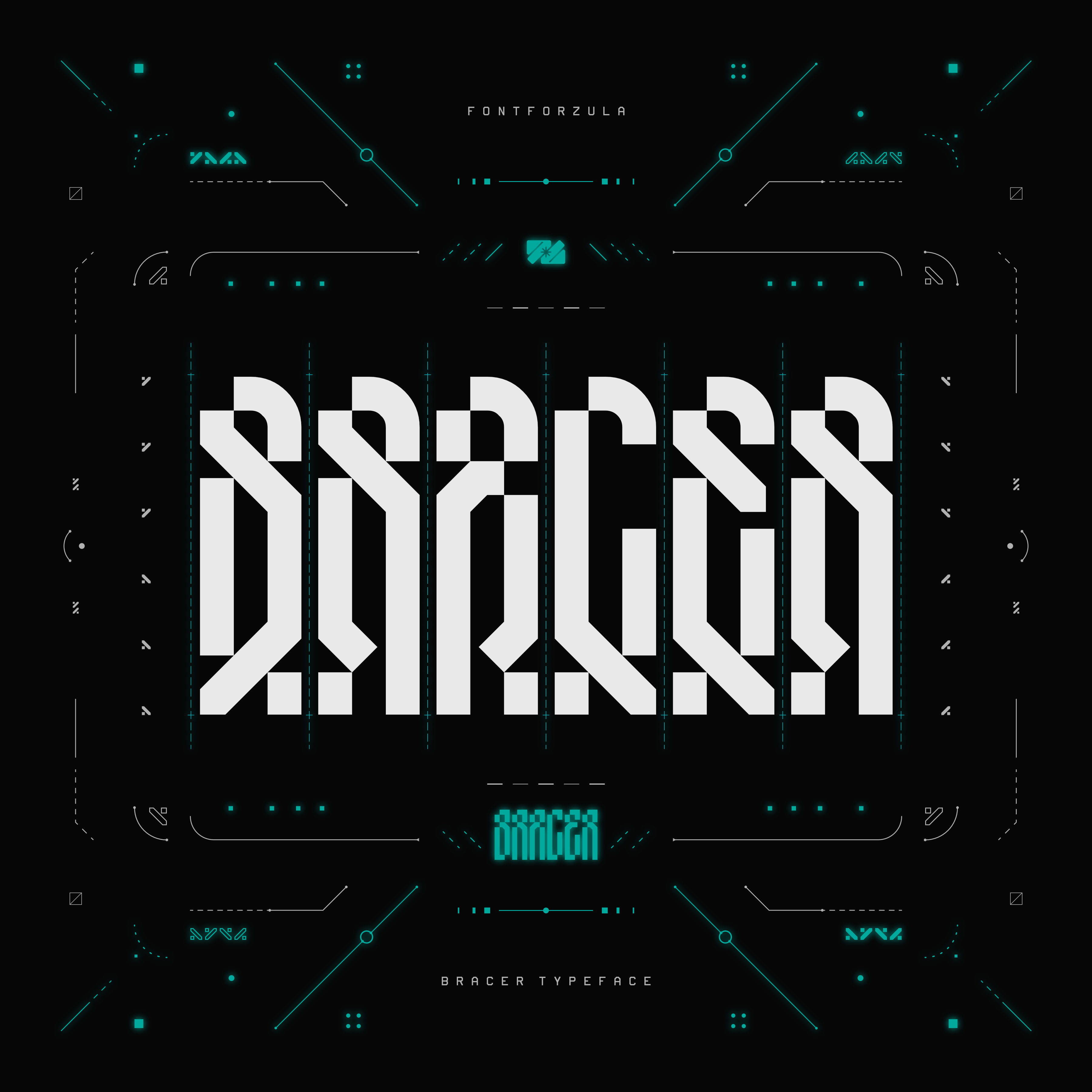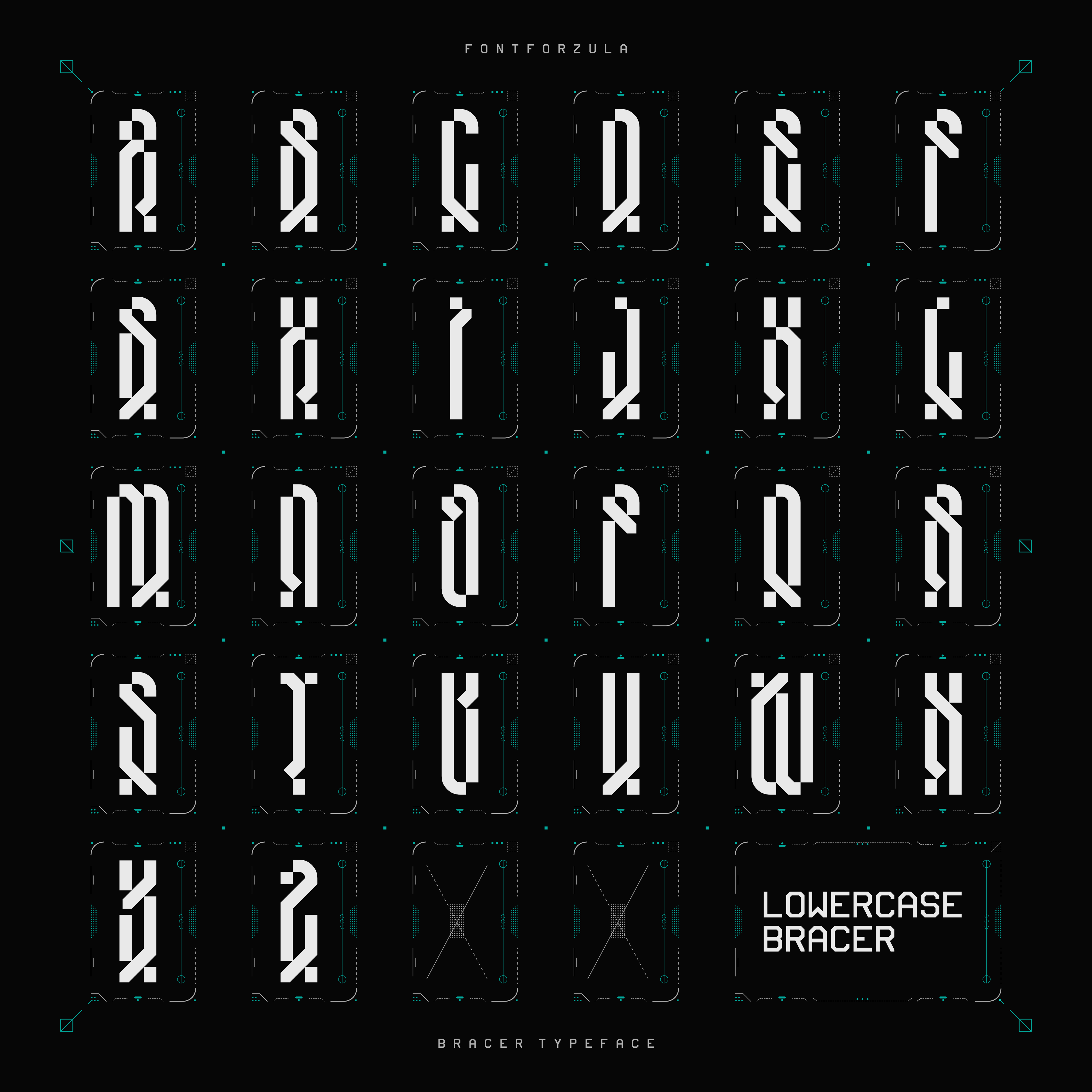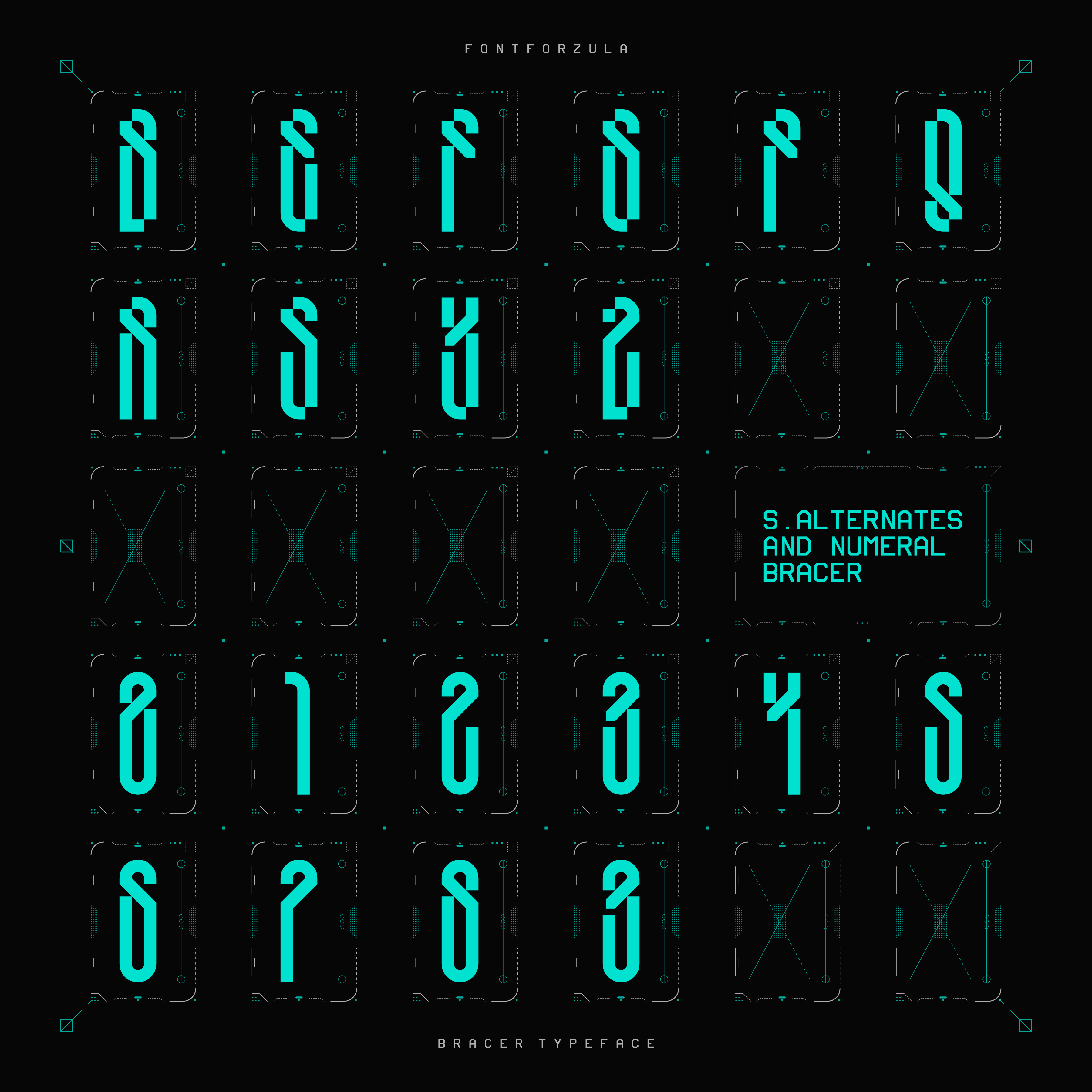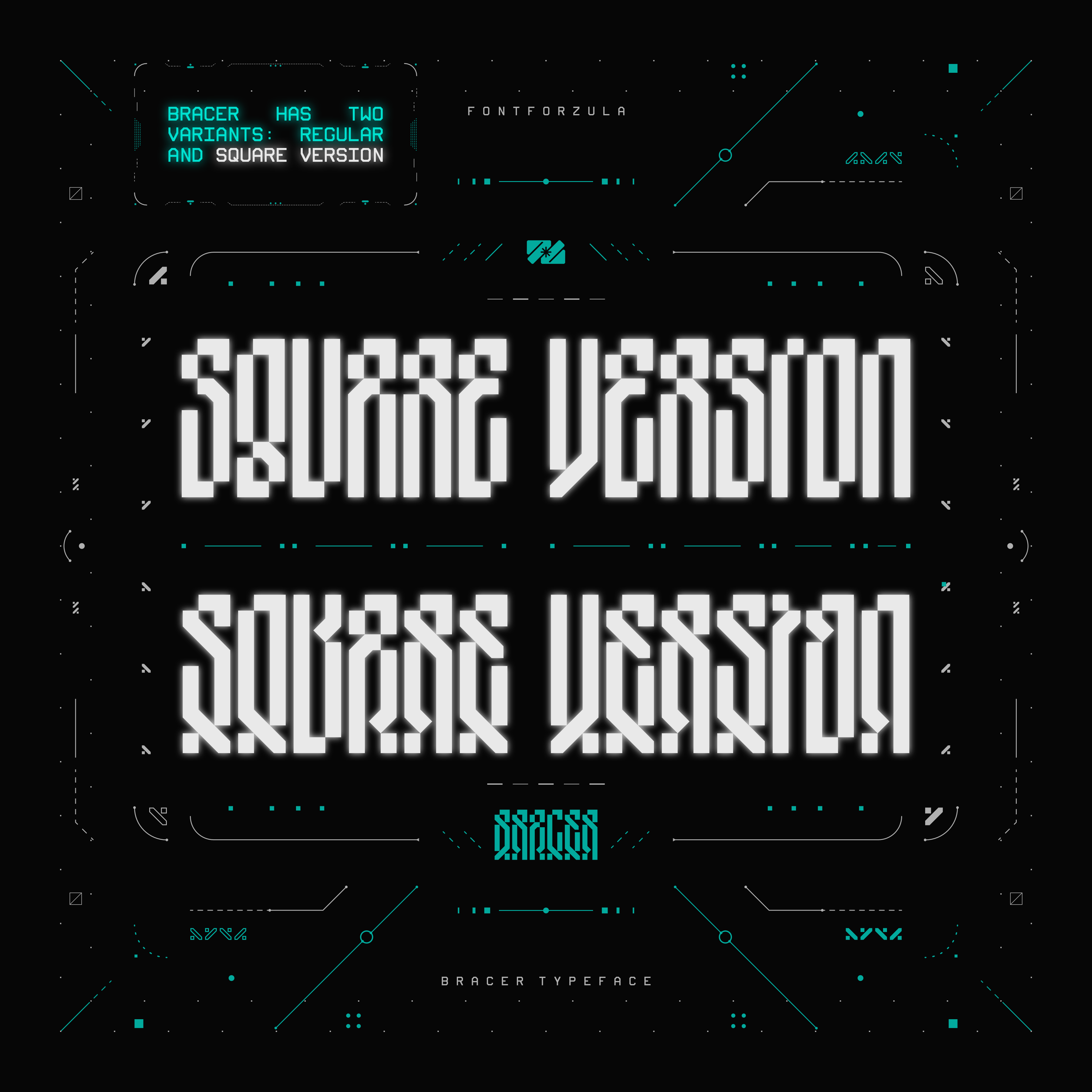
Bracer Typeface
Bracer is an experimental typeface with a unique, strong, and futuristic appearance.
Suitable for apparel, branding, posters, experimental art, and other projects that require a
futuristic look.
- 2 Variant Styles : Regular and Square
- 26 Uppercase
- 10 Upp Alternates
- 26 Lowercase